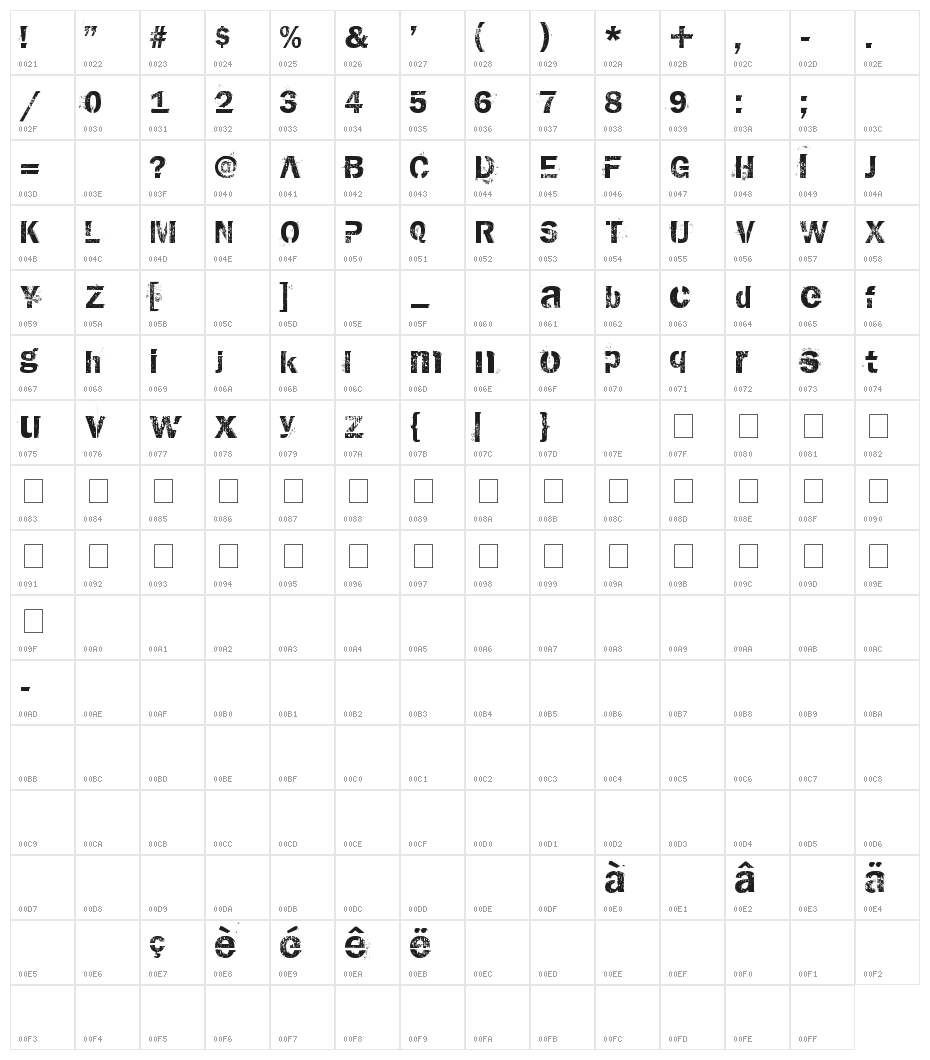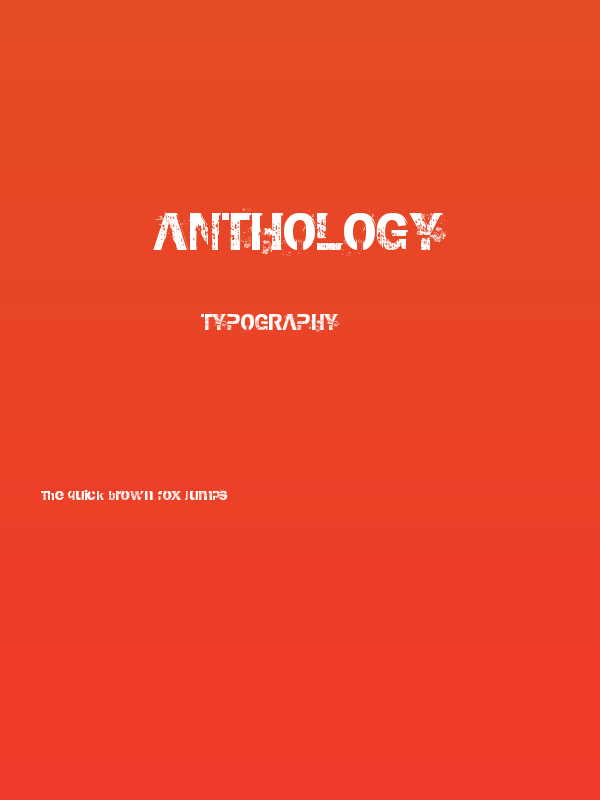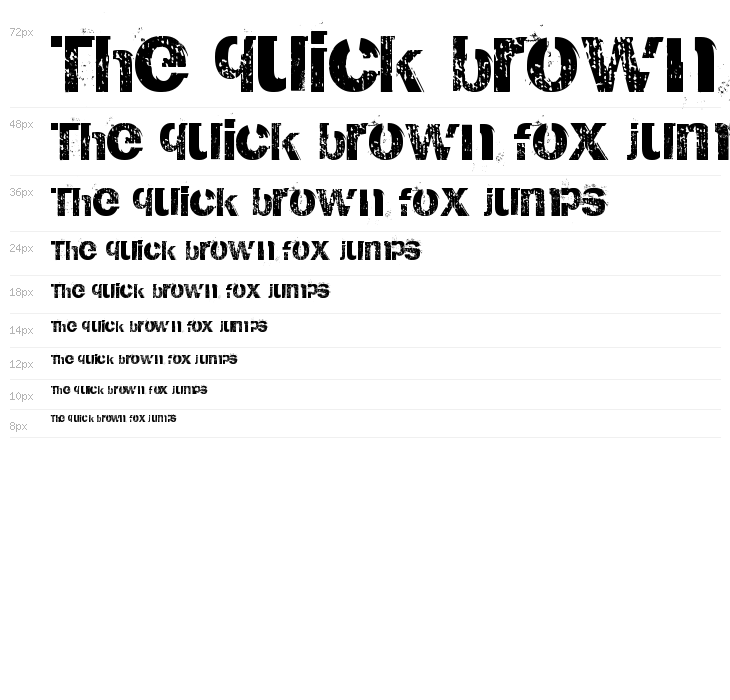
AnthologY Font
AnthologY Description
This font features a bold, distressed style with a grunge texture that gives it a rugged, worn appearance. The characters are bold and impactful, with irregular edges and a weathered look that suggests a vintage or industrial aesthetic. The uppercase and lowercase letters maintain a consistent style, while the numbers and special characters are equally bold and textured. This font is ideal for projects that require a strong, eye-catching design with a touch of edginess.
ANTHOLOGY UPPERCASE
ANTHOLOGY LOWERCASE
ANTHOLOGY OTHER CHARS
| Overall Style | Vintage, Grunge |
| Use Case | Headlines, Posters, Branding |
| Proposed Projects | Ideal for album covers, posters, branding for edgy or vintage-themed products, and any design requiring a bold, impactful statement. |